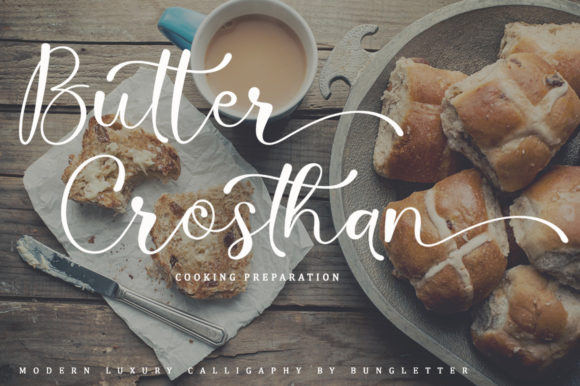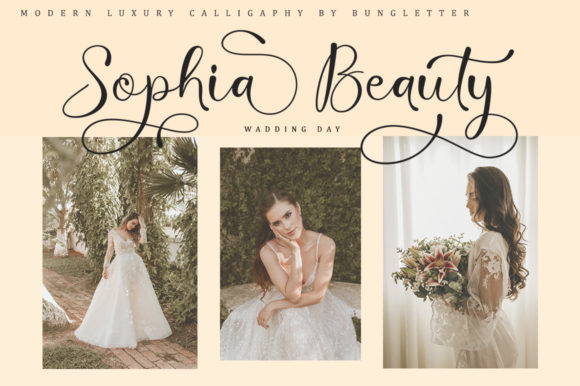
Haythen Maglley Font
db-ku.com - Script & Handwritten -- Haythen Maglley is a modern luxury script font, that comes with a beautiful character and vibe.